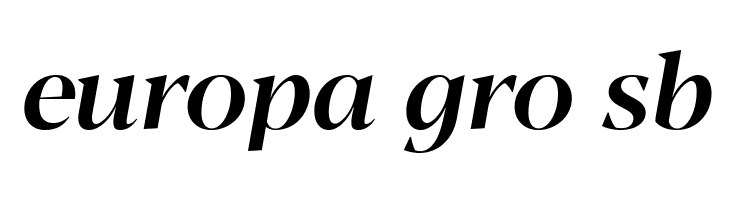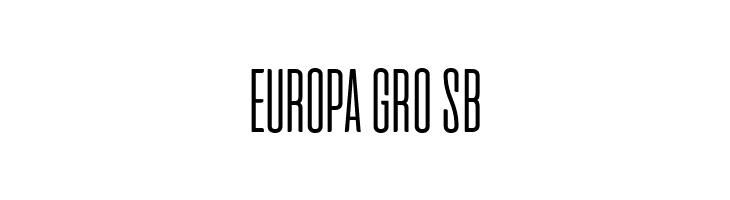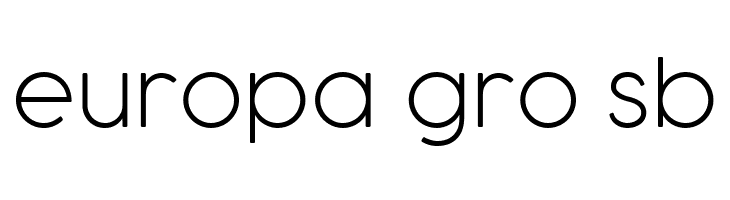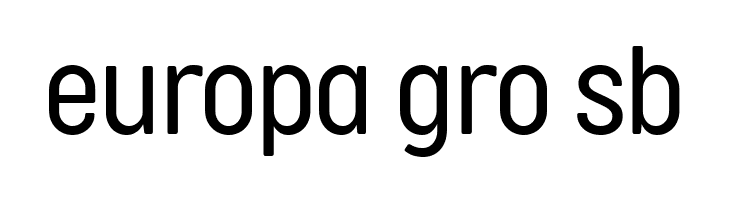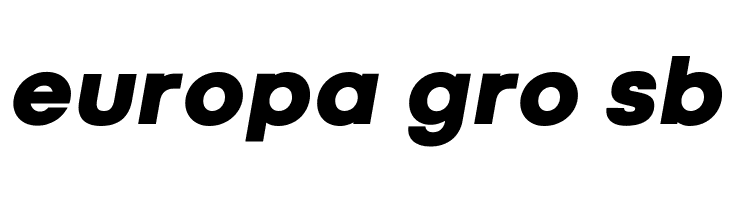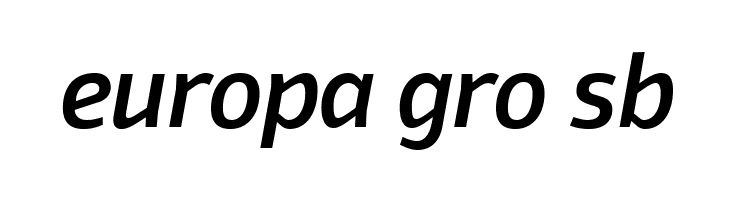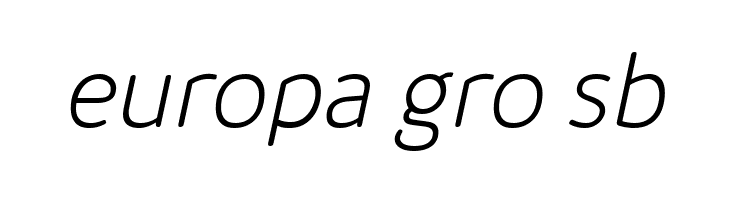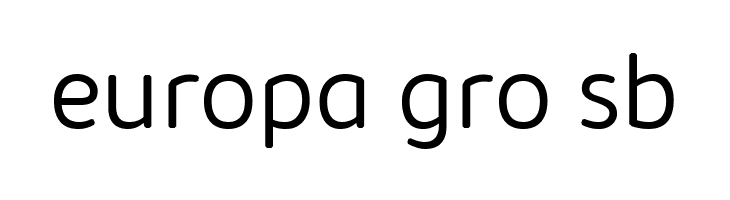
An elegant, italicized font with medium weight and sharp strokes.
A tall, narrow, and elegant font with an extra light weight, perfect for modern designs.
A modern, ultra-lightweight font with geometric shapes and clean lines.
A modern, condensed sans-serif font with a light weight and geometric design.
A bold, italicized font with a heavy weight and dynamic style.
A modern, medium-weight italic font with clean lines and excellent legibility.
An elegant italic font with smooth curves and medium weight, ideal for refined designs.
A bold, rounded font with smooth curves and consistent weight.
A sleek, modern sans-serif font with an extra light weight and italic style.
A clean, modern sans-serif font with a light weight and excellent readability.